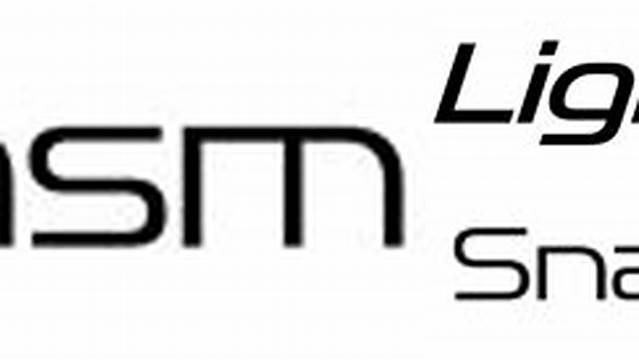
1. What is Snasm Light Italic Font?
Hey guys! Let's dive into the world of Snasm Light Italic, a font that's been making waves in the design community. Snasm Light Italic isn't just your run-of-the-mill typeface; it's a sophisticated, elegant font that brings a touch of class to any project. Its light weight and italic styling give it a unique, airy feel, making it perfect for projects that need a subtle yet impactful touch. Whether you're working on branding, editorial design, or web layouts, this font can be a game-changer. Think about it – the right font can elevate your design from good to great, and Snasm Light Italic might just be the secret ingredient you've been searching for. But what exactly makes it so special? Well, it’s the combination of its delicate strokes, graceful curves, and the slight slant that gives it a dynamic and modern edge. It's versatile enough to be used in a variety of contexts, from headlines to body text, and its readability is surprisingly good despite its elegant appearance. In short, Snasm Light Italic is a font that blends style and substance, making it a valuable addition to any designer's toolkit. So, if you're looking to add a dash of sophistication to your next project, keep reading to find out how you can get your hands on this fantastic font!
2. Key Features of Snasm Light Italic
Okay, so what are the key features that make Snasm Light Italic stand out from the crowd? First off, the light weight of this font gives it a delicate and refined appearance. It’s not heavy or overpowering, making it ideal for designs where subtlety is key. The italic styling adds a touch of elegance and movement, creating a visual rhythm that’s pleasing to the eye. This makes it particularly effective for adding emphasis or a hint of sophistication to your text. But it’s not just about looks; Snasm Light Italic is also designed with usability in mind. The letterforms are carefully crafted to ensure readability, even at smaller sizes. This means you can use it confidently in a variety of contexts, from headlines to body text, without sacrificing clarity. Another important feature is its versatility. Snasm Light Italic works well in both print and digital media, making it a great choice for a wide range of projects. Whether you're designing a website, a brochure, or a business card, this font can adapt to your needs. And let's not forget its unique character set. Snasm Light Italic includes a full range of characters, including uppercase and lowercase letters, numbers, punctuation marks, and special symbols. This gives you plenty of flexibility to create compelling and professional designs. All in all, the key features of Snasm Light Italic combine to create a font that’s both beautiful and practical. It’s a great choice for anyone looking to add a touch of elegance and sophistication to their work.
3. Where to Use Snasm Light Italic Font
So, you're intrigued by Snasm Light Italic, but where exactly can you use it? The beauty of this font lies in its versatility, making it suitable for a wide array of projects. Let's start with branding. Snasm Light Italic can be an excellent choice for logos and brand materials, especially for businesses that want to convey a sense of elegance, sophistication, or creativity. Think fashion brands, boutique hotels, or artisanal products – this font can help communicate a high-end, stylish image. In the realm of editorial design, Snasm Light Italic shines as well. Its delicate and refined appearance makes it perfect for magazines, books, and other publications. It can be used for headlines, subheadings, or even body text, depending on the overall tone and style of the publication. Its readability ensures that your content remains accessible, while its elegant italic styling adds a touch of visual interest. Web design is another area where Snasm Light Italic can make a big impact. It can be used to create a stylish and modern look for websites, particularly those that prioritize aesthetics and user experience. From headers to navigation menus, this font can help create a cohesive and visually appealing online presence. And let's not forget about invitations and stationery. If you're planning a wedding, a party, or any other special event, Snasm Light Italic can add a touch of class to your invitations, save-the-dates, and thank-you notes. Its elegant italic styling is perfect for formal occasions, while its light weight keeps it feeling fresh and contemporary. In short, Snasm Light Italic is a versatile font that can be used in a variety of contexts. Whether you're working on branding, editorial design, web design, or invitations, this font can help you create stunning and sophisticated designs.
4. Design Projects Ideal for Snasm Light Italic
Okay, let's get specific. What kinds of design projects are absolutely perfect for Snasm Light Italic? Well, think about projects that need a touch of elegance and sophistication. Wedding invitations are a classic example. The delicate, italicized letters can add a romantic and refined feel, making them ideal for setting the tone for a special day. Imagine the names of the happy couple beautifully displayed in Snasm Light Italic – it just screams timeless romance! Another great use case is for high-end branding. If you're working on a logo or visual identity for a luxury brand, this font can help convey a sense of quality and exclusivity. Think fashion boutiques, high-end restaurants, or artisanal businesses – Snasm Light Italic can help create a brand image that's both stylish and sophisticated. Editorial layouts, such as magazine articles or book covers, are also a fantastic fit. The font's readability and elegant styling make it perfect for headlines and body text alike. It can add a touch of class to your publications, making them feel more polished and professional. Websites that prioritize aesthetics and user experience can also benefit from Snasm Light Italic. Imagine a sleek, modern website with headings and navigation menus in this font – it can create a visually appealing and user-friendly online presence. And let's not forget about stationery design. Business cards, letterheads, and thank-you notes can all be elevated with a touch of Snasm Light Italic. It can add a professional and stylish touch to your correspondence, making a lasting impression on your clients and colleagues. In short, Snasm Light Italic is a versatile font that's ideal for a wide range of design projects. Whether you're working on wedding invitations, high-end branding, editorial layouts, websites, or stationery, this font can help you create stunning and sophisticated designs.
5. How Snasm Light Italic Enhances Readability
Now, you might be thinking,